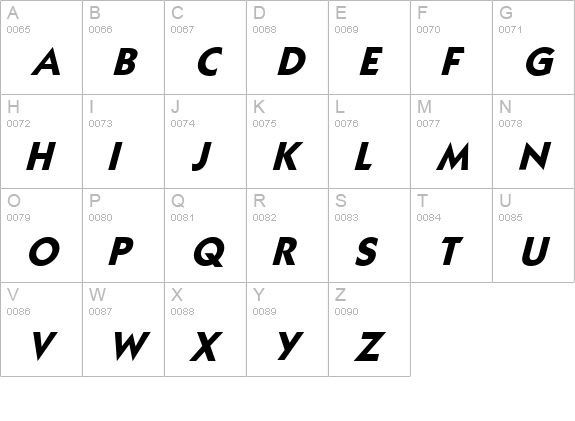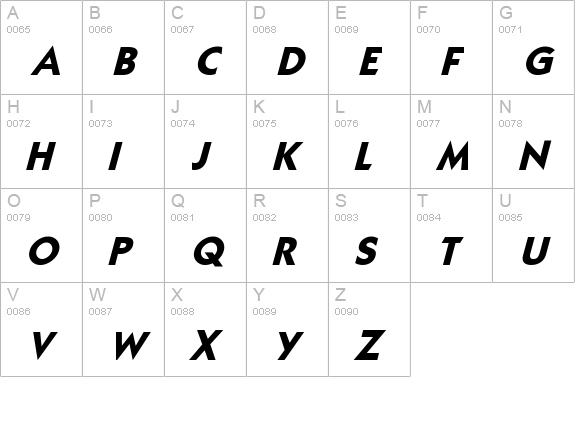
Mouser Italic Font Details
Mouser Italic is a distinctive, italic variant in the Mouser typeface family \xE2\x80\x94 well suited to design and typography projects.
Mouser Italic font is a sleek and modern typeface that exudes elegance and sophistication. Its slanted design adds a touch of flair to any design project, making it perfect for both professional and creative uses. The smooth curves and unique letterforms of Mouser Italic font give it a distinct and stylish look that will enhance any text or headline. What's even better is that Mouser Italic font is available for free download at FontsMarket.com. That's right, you can get your hands on this stunning font at no cost, making it a fantastic choice for designers looking to add a touch of luxury to their work without breaking the bank. Don't miss out on the opportunity to elevate your designs with Mouser Italic font – download it today and see the difference it can make!